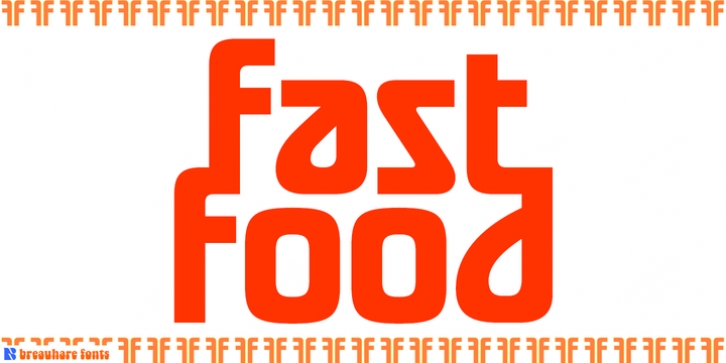
Fast Food is a font based on the former logo of a hamburger chain. It has that look of the 1970s & 1980s, yet also has a futuristic, alienesque, sci-fi look about it. It can be used for projects aimed at consumers waxing nostalgic for their good old days, or for movie posters or books about the great final frontier, and much more. You may even develop such an appetite that youĂ­ll want to supersize your order! Digitized by John Bomparte.